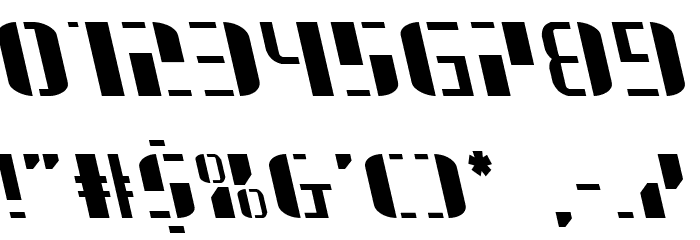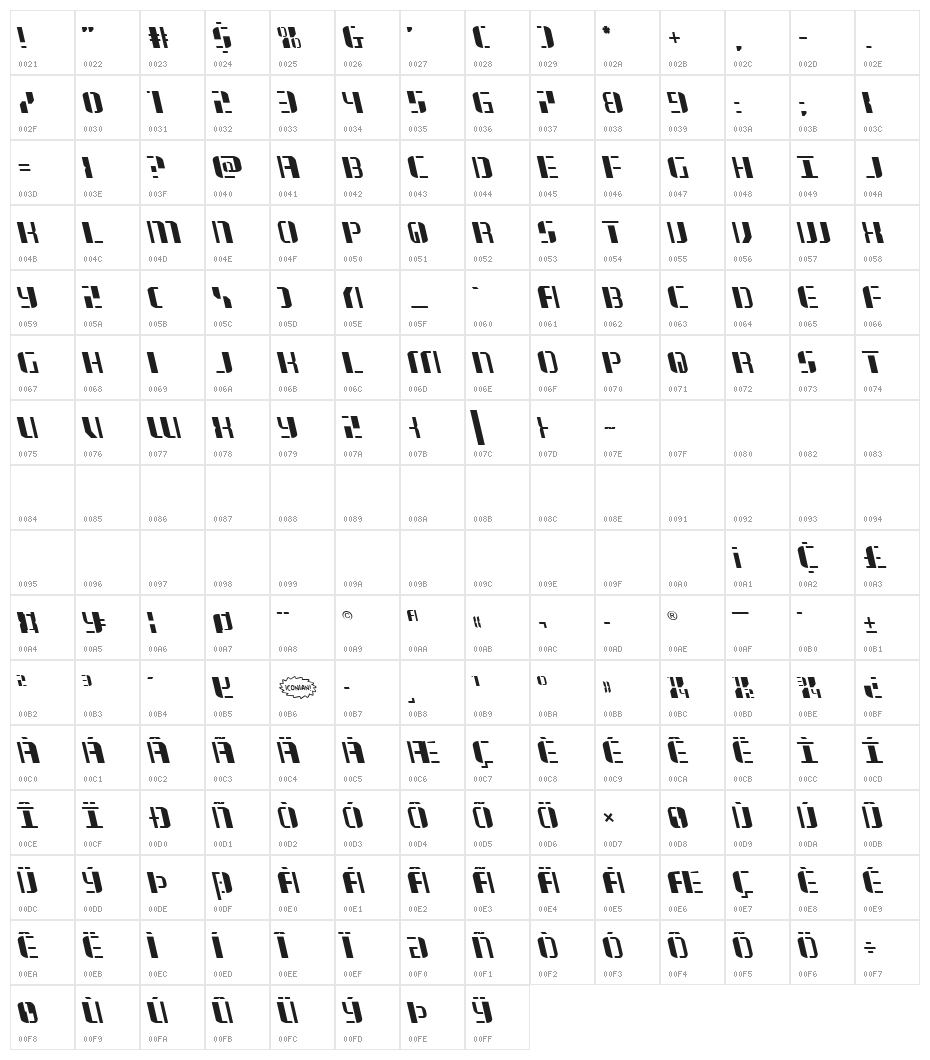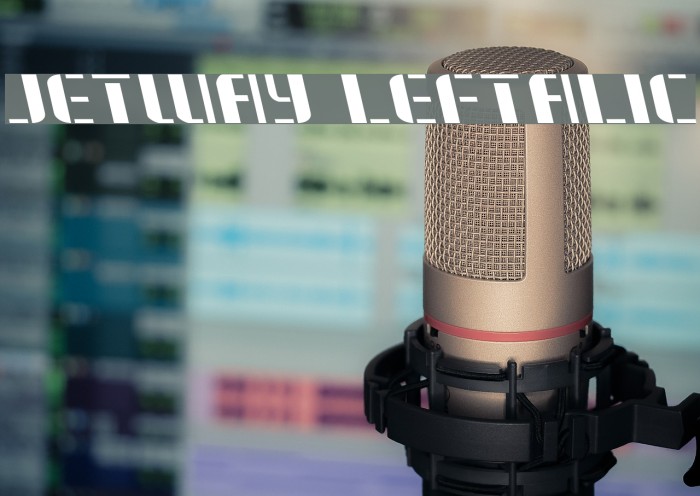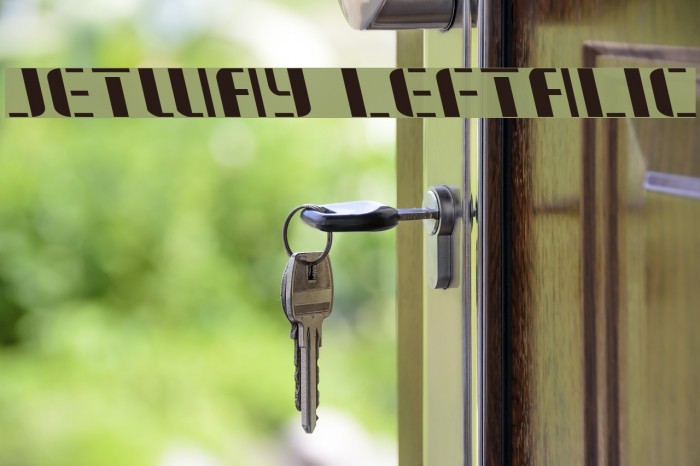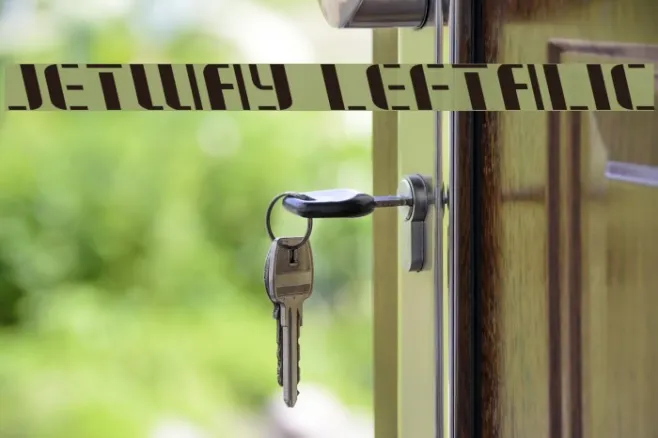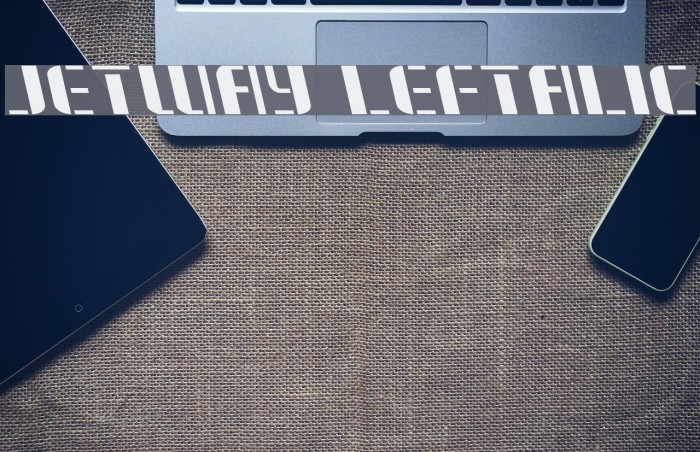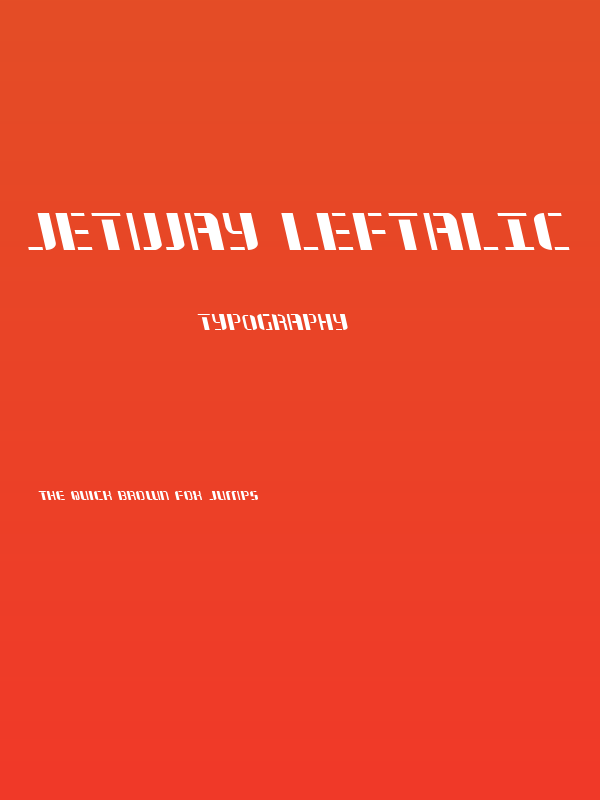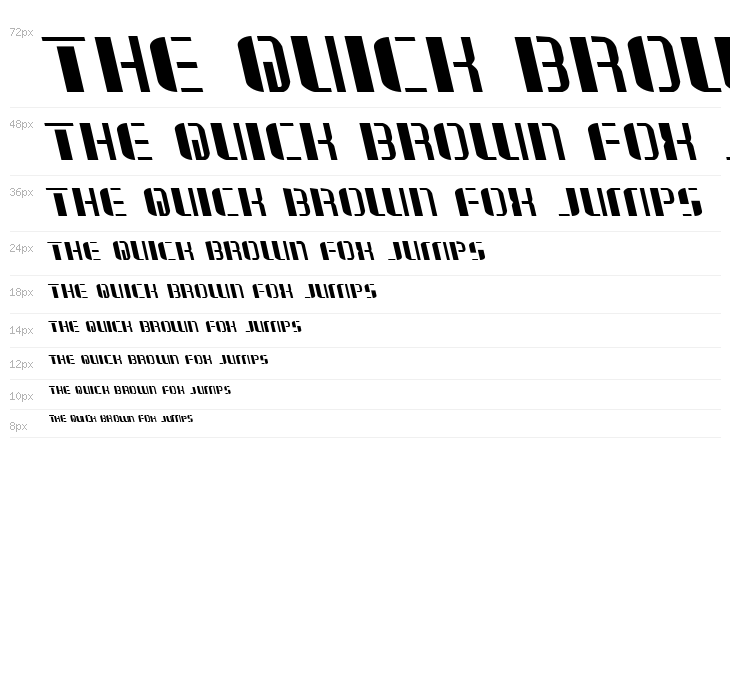
Jetway Leftalic Font
Jetway Leftalic Description
This font features a bold, modern design with a distinct stencil-like appearance. The characters are constructed with sharp, angular cuts and a consistent slant to the left, giving it a dynamic and forward-moving feel. The uppercase and lowercase letters maintain a uniform style, while the numerals and special characters complement the overall aesthetic. The font's unique structure makes it stand out, ideal for projects that require a strong visual impact.
| Proposed Projects | Ideal for branding, posters, and signage where a bold, modern look is desired. |